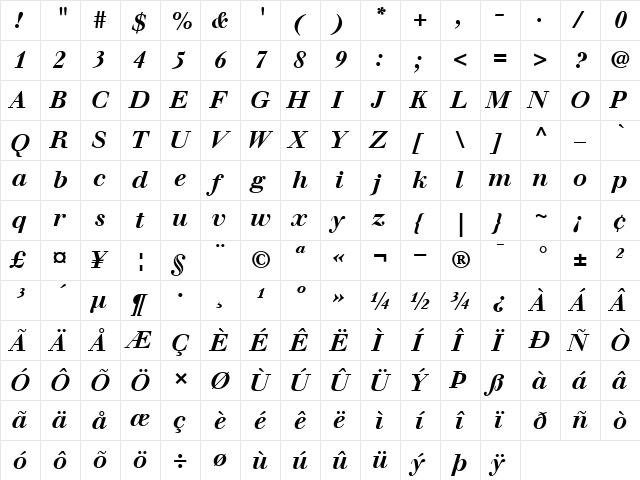
Walbaum Italic
Design Context for Walbaum Typeface
Walbaum is a composed and adaptable typeface that performs quietly and consistently across a wide range of design contexts. The slanted form adds forward momentum and visual energy.
Pro Tip: Try Walbaum for annotation and caption copy alongside an upright companion — the contrast in angle creates a dynamic but ordered typographic system.